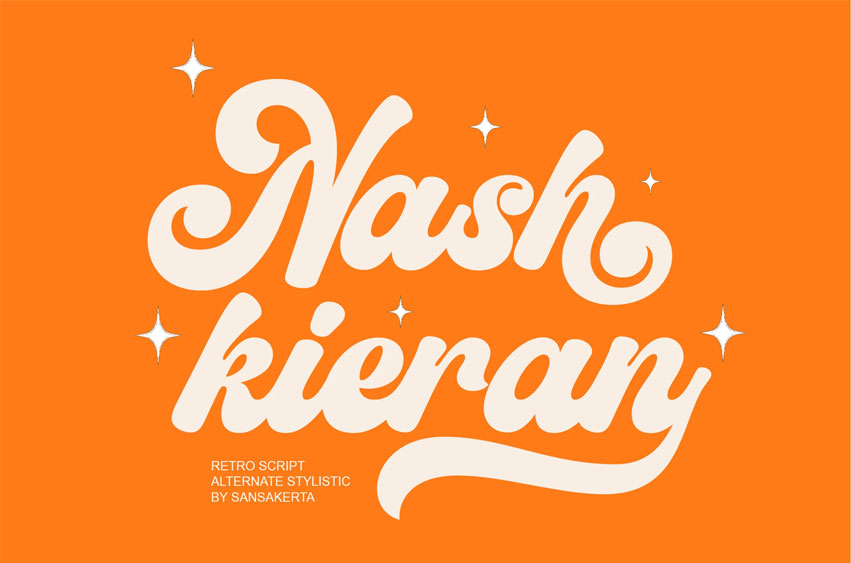
Nash Kieran Font is perfect for many projects: books, magazines, logos, branding, photography, quotes, blog headers, posters, advertisements, etc.
• Numeral
• Functional
• Stylistic